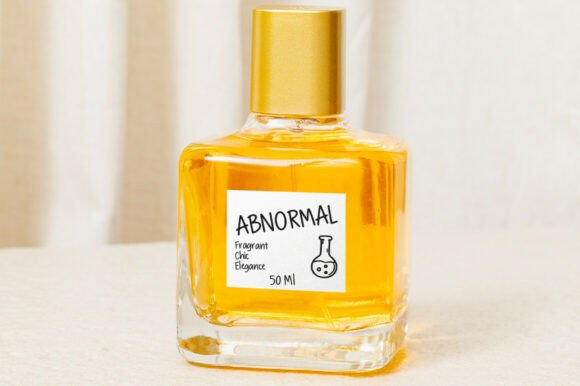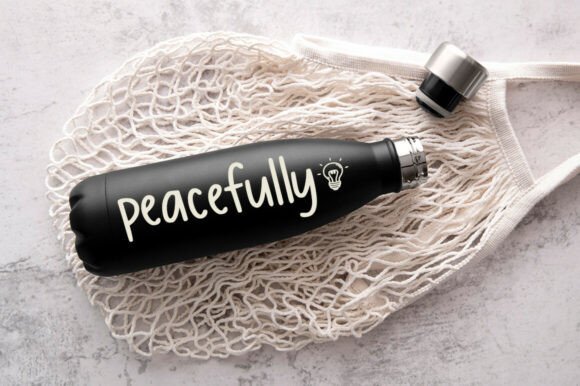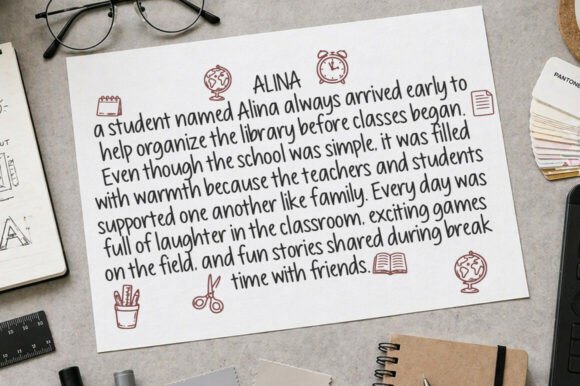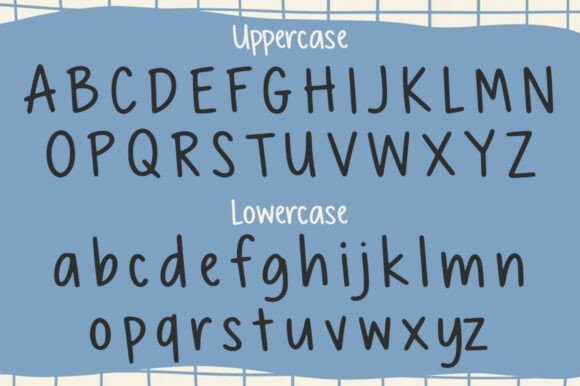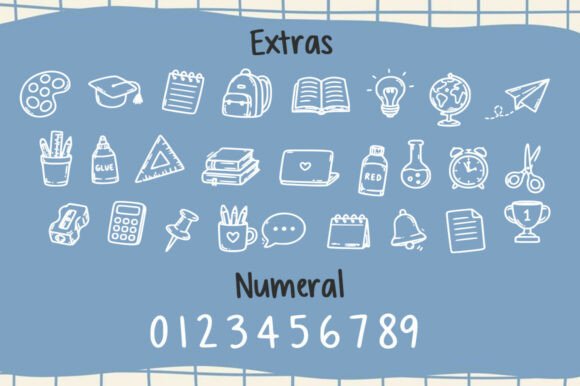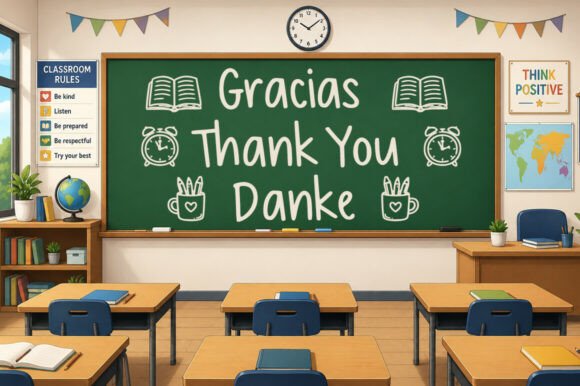
Introduction to Private Student Font
Infuse your projects with the authentic charm of Private Student, a simple handmade font designed for a personal, human touch.
This typeface features slender, upright letterforms with a clean monolinear stroke that perfectly mimics natural penmanship Its approachable, “schoolroom” aesthetic is enhanced by its airy spacing and gentle curves, making it an exceptional choice for educational materials, creative journaling, nursery decor, and personalized stationery.